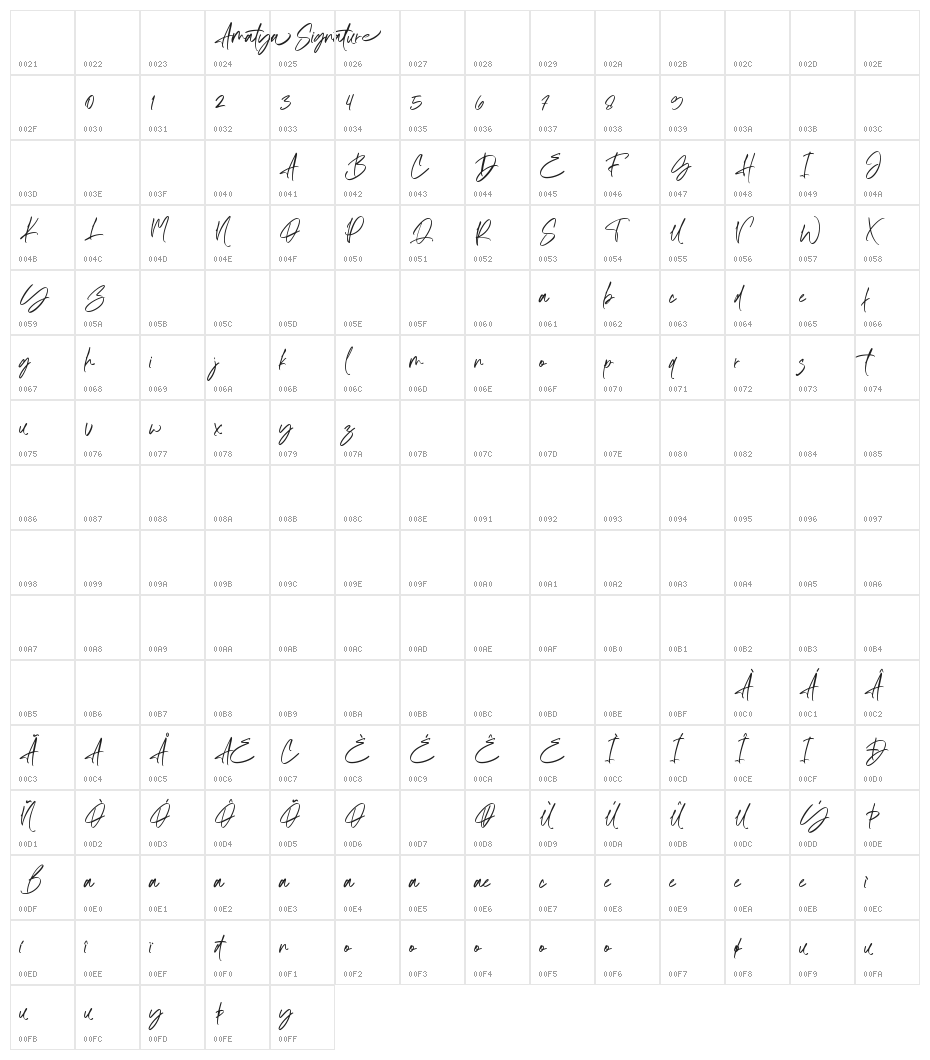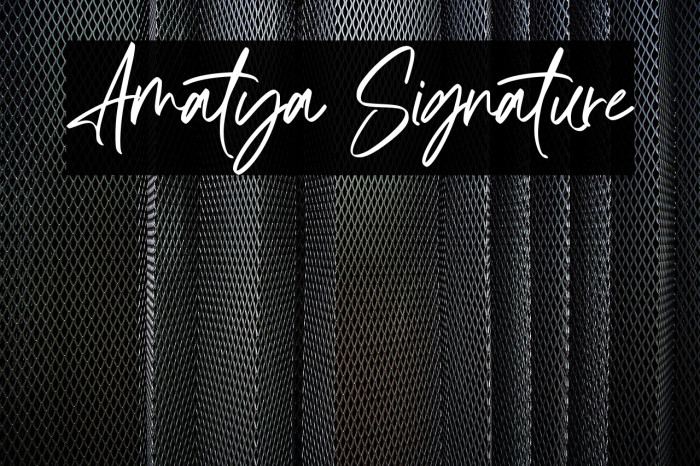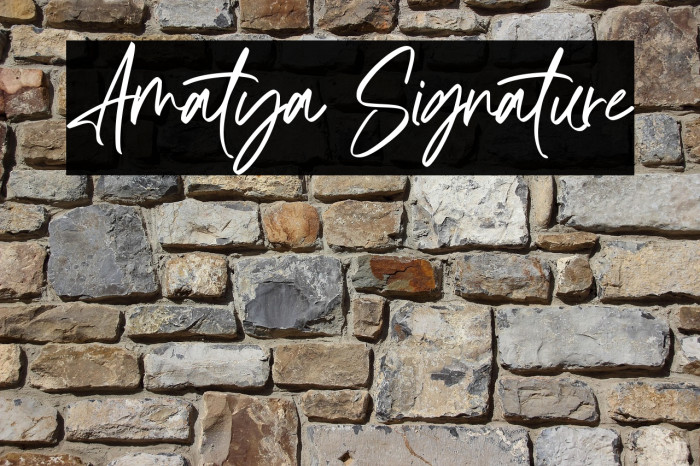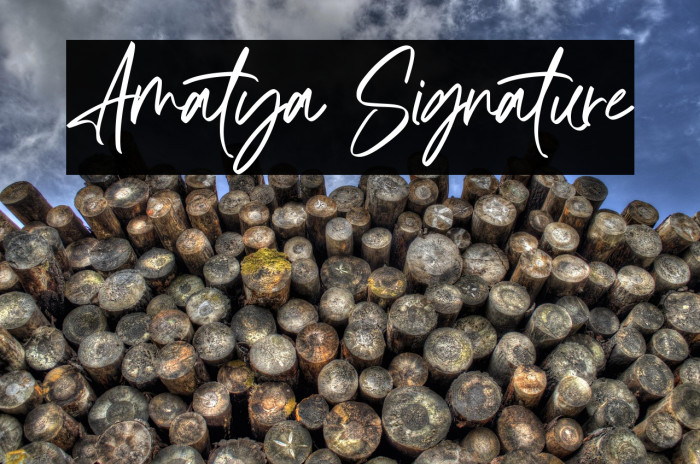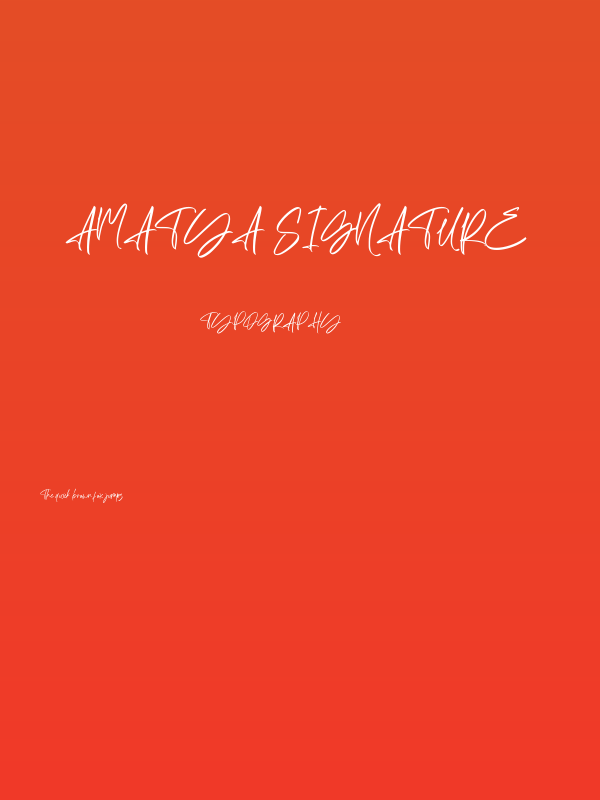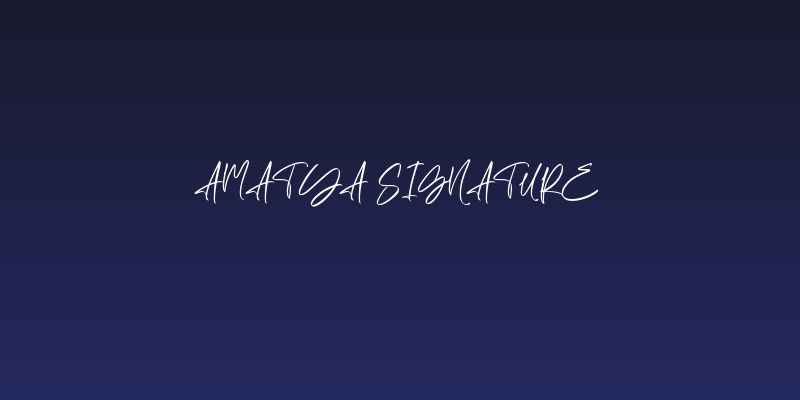
Amatya Signature Font
Amatya Signature Description
This font exudes a modern and elegant handwritten style, characterized by fluid and dynamic strokes that mimic the natural flow of a signature. The uppercase letters are bold and prominent, while the lowercase letters maintain a consistent and graceful appearance. The numerals are distinct and easily readable, complementing the overall aesthetic. Special characters are seamlessly integrated, enhancing the font's versatility. The design is perfect for adding a personal touch to any project, with its stylish and sophisticated look.
| Use Case | Logos, Invitations, Personal Signatures |
| Proposed Projects | Ideal for branding, invitations, personal signatures, and elegant logos. |